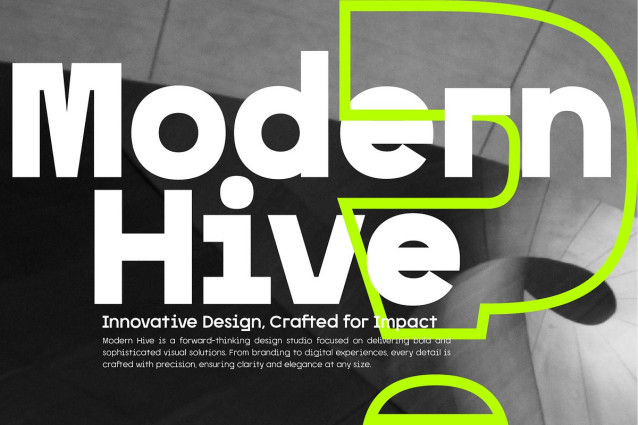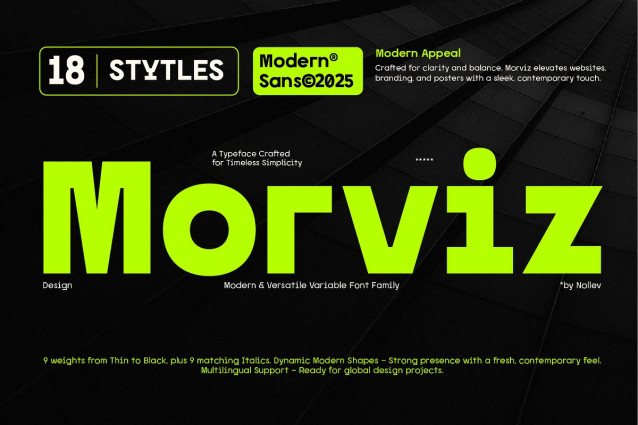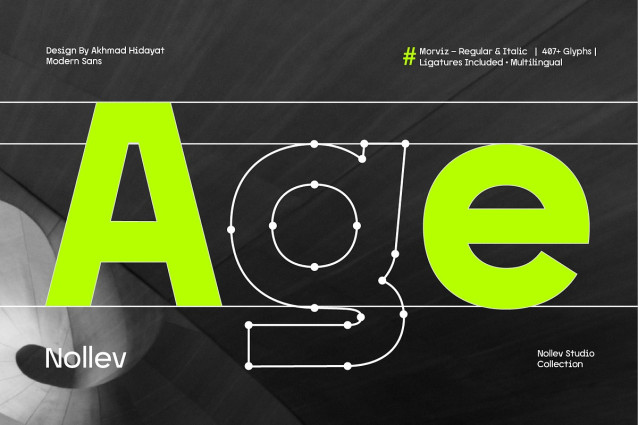
Morviz Font Family
Morviz Font Family is a modern and versatile geometric sans-serif typeface crafted for clarity, balance, and strong visual impact. With clean letterforms and dynamic proportions, it brings a fresh and contemporary feel to any design — perfect for branding, websites, packaging, and editorial use.
The family includes 9 weights (from Thin to Black) with matching Italics, plus a Variable Font version for complete flexibility in any creative workflow. Designed to maintain readability at any size, Morviz is both functional and stylish — ideal for global design projects.